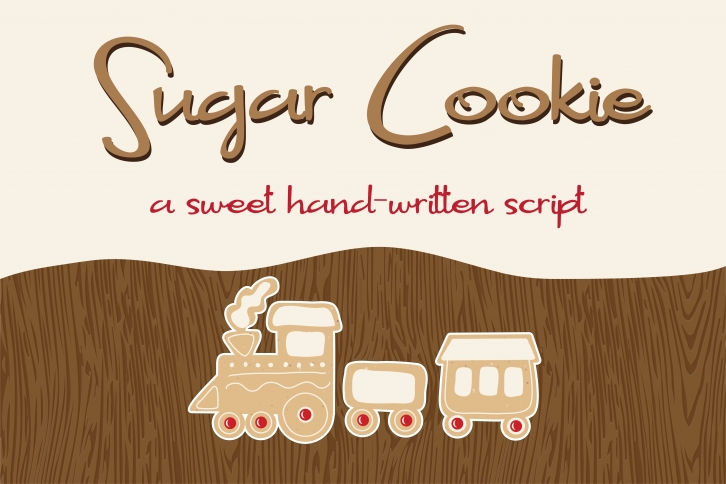
ZP Sugar Cookie is a beautiful font that was designed by Illustration Ink. It's a great choice for designers and creatives who need such a font. It was released on June 6, 2018 and the file size is 21.15 MB. ZP Sugar Cookie may give a more youthful, expressive and casual look to your project. It is a very beautiful, refined, elegant, and high-quality font.